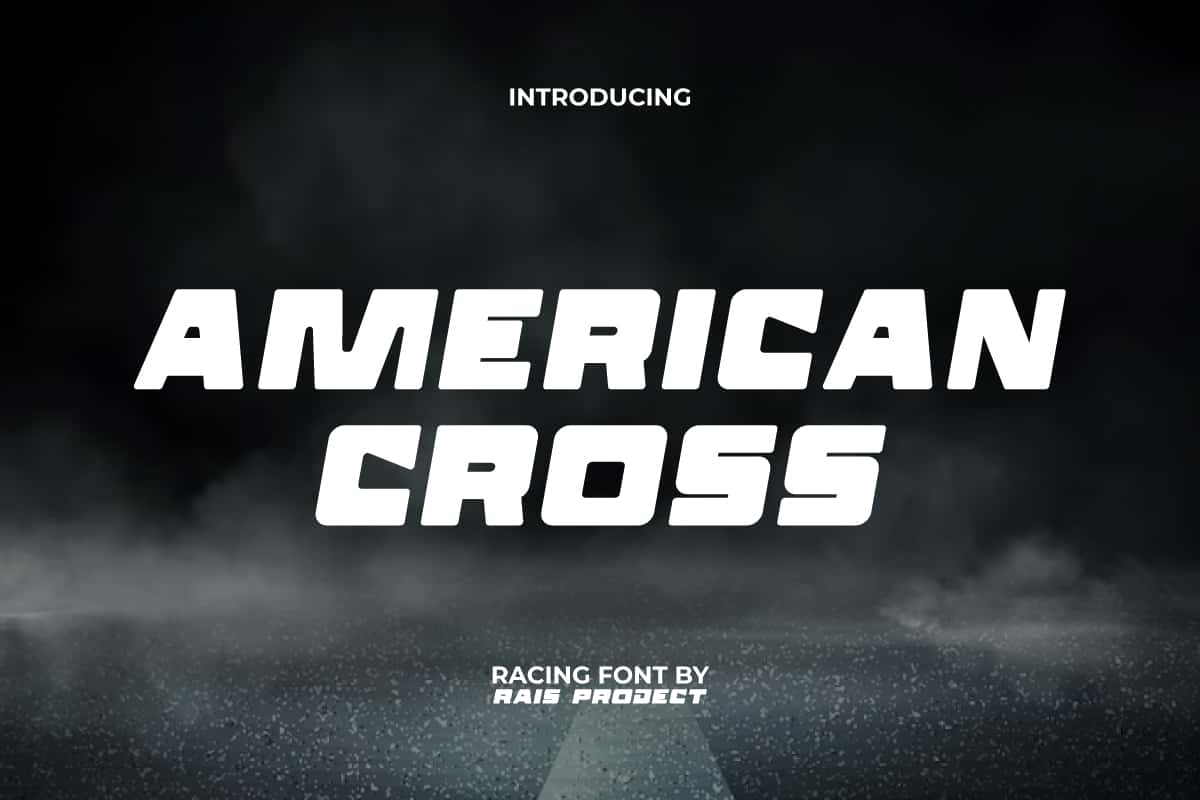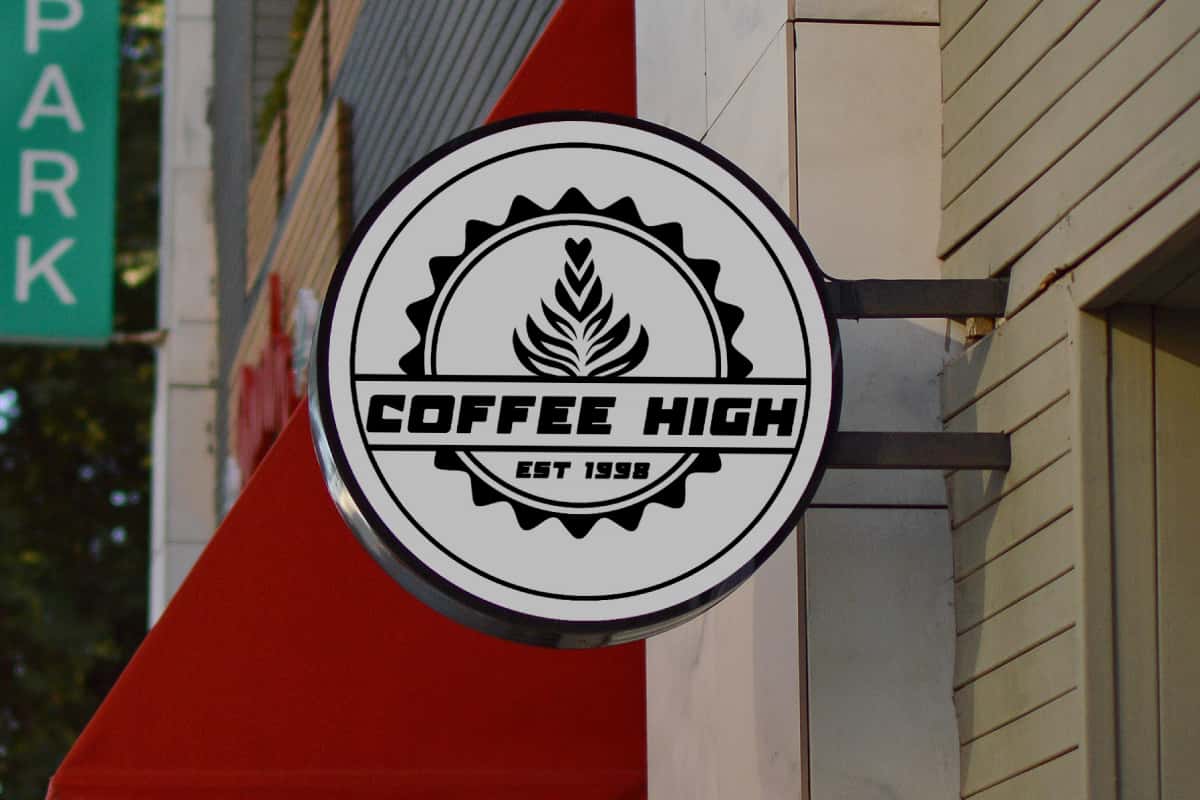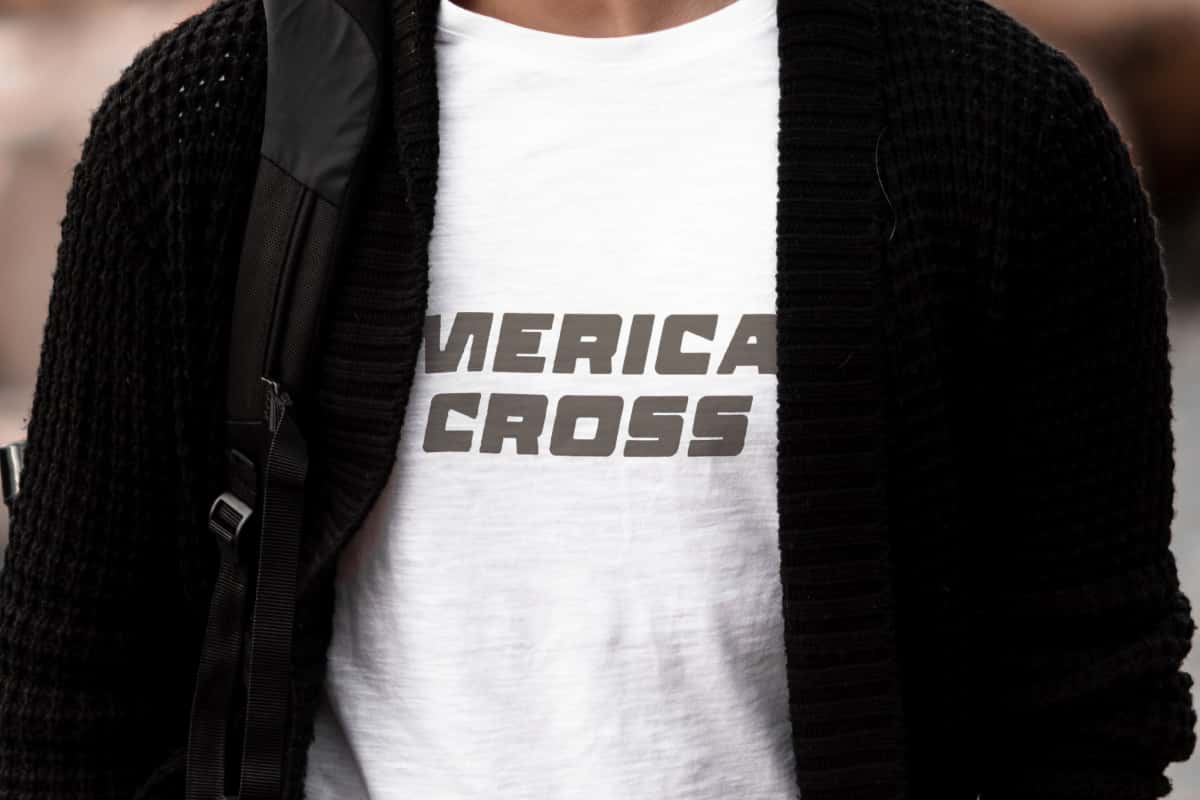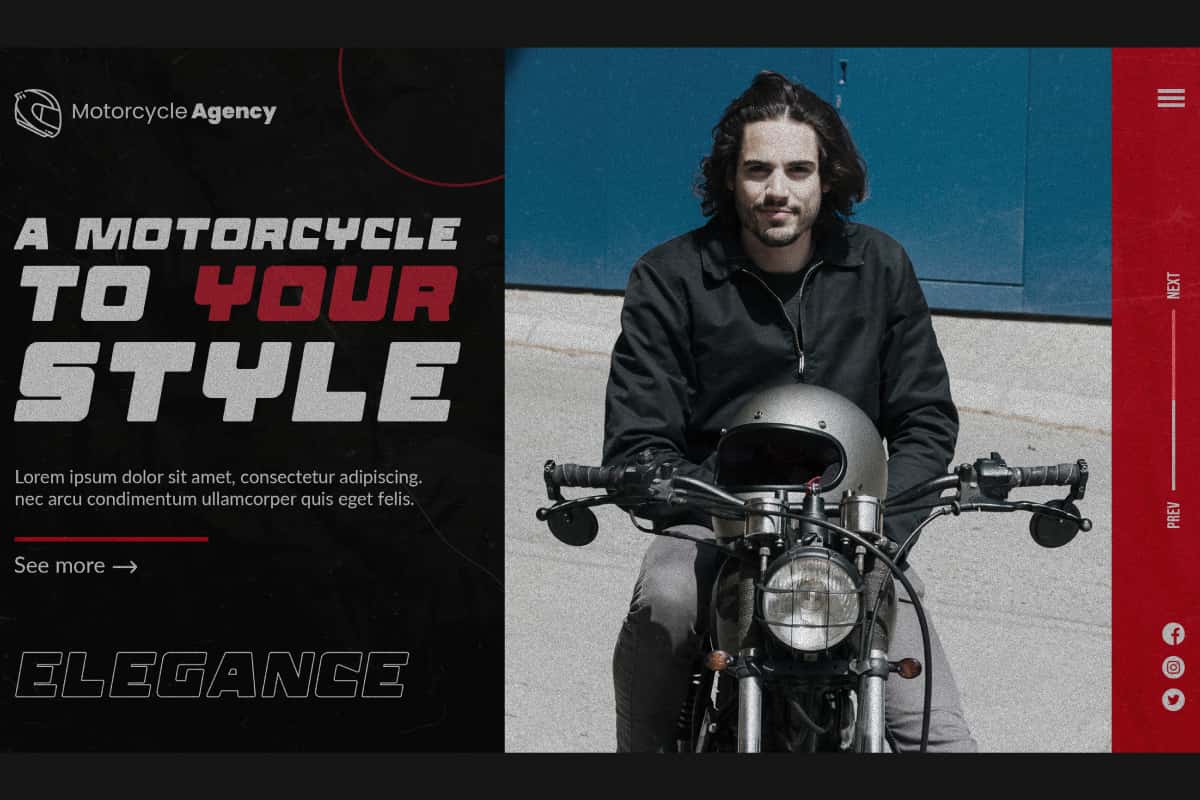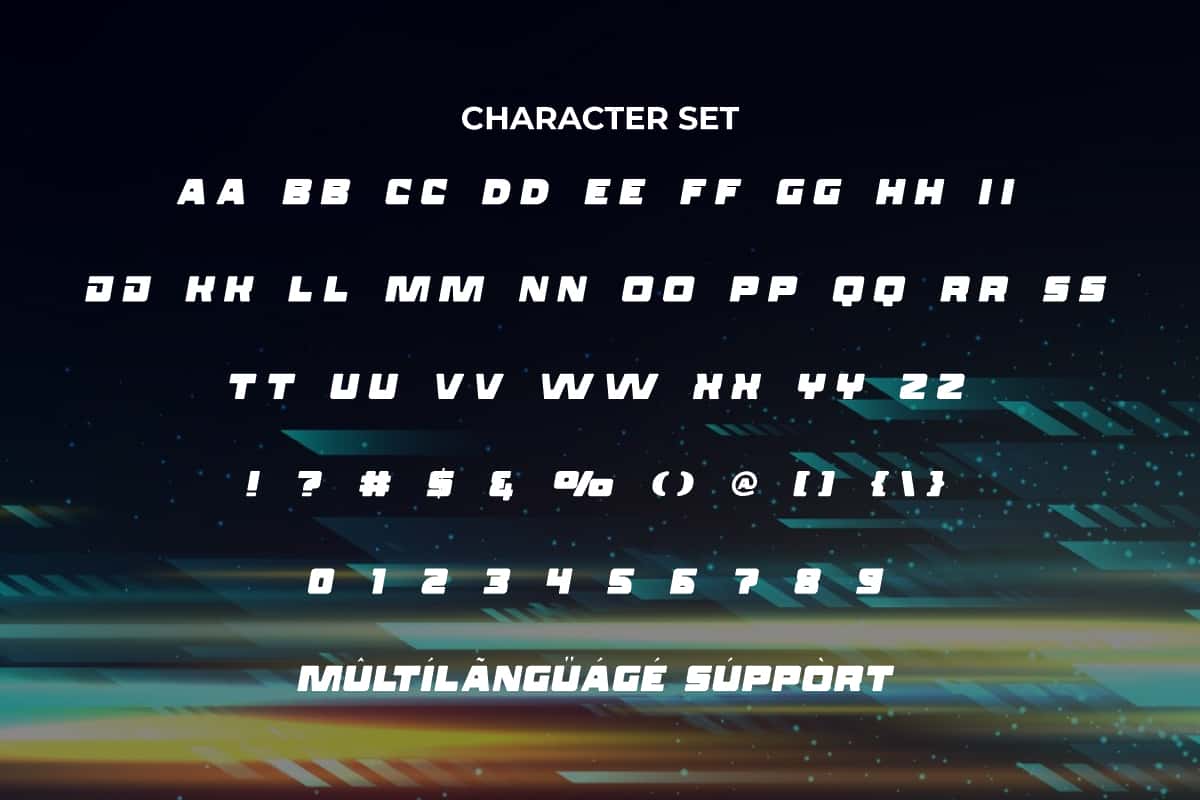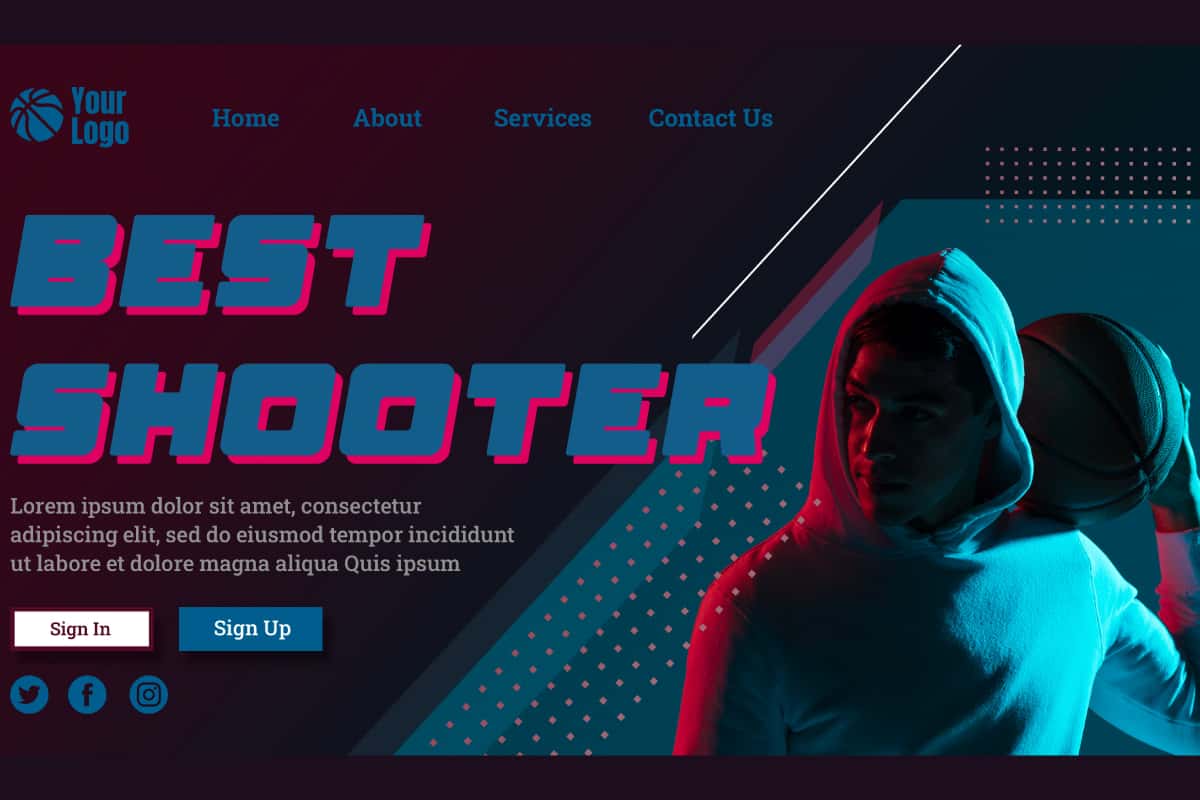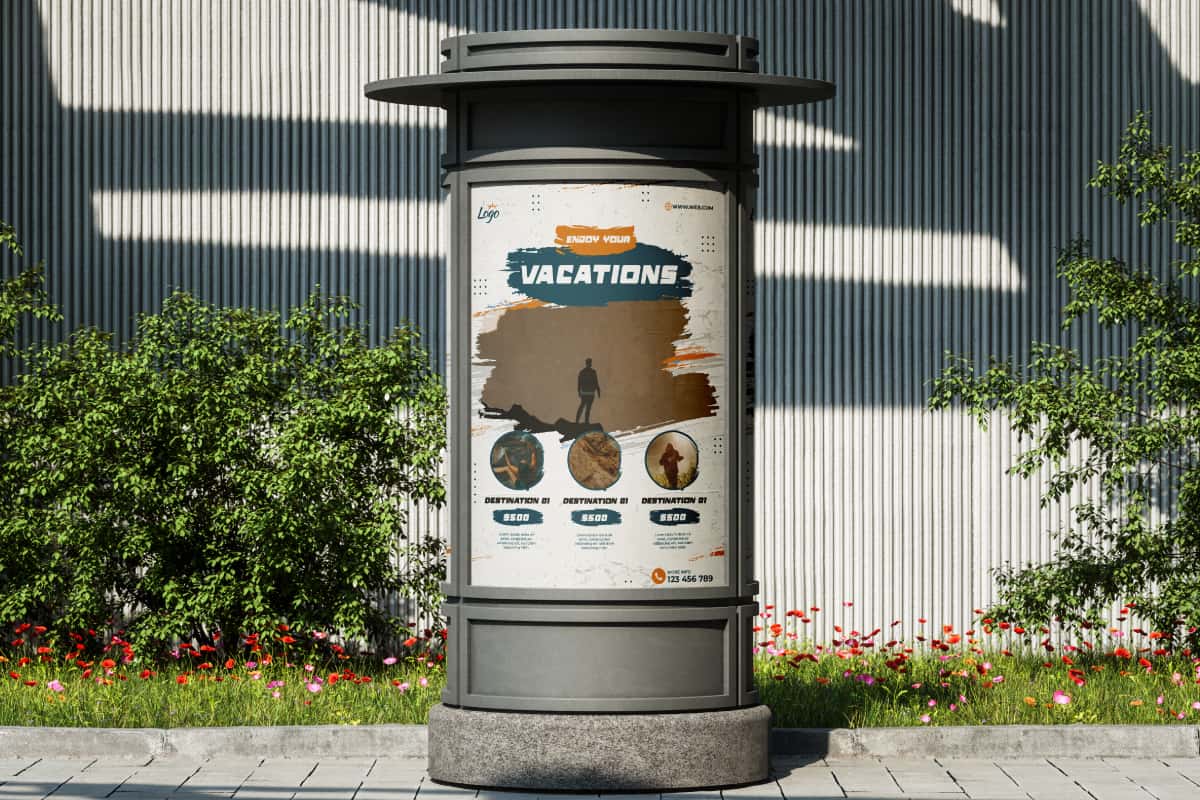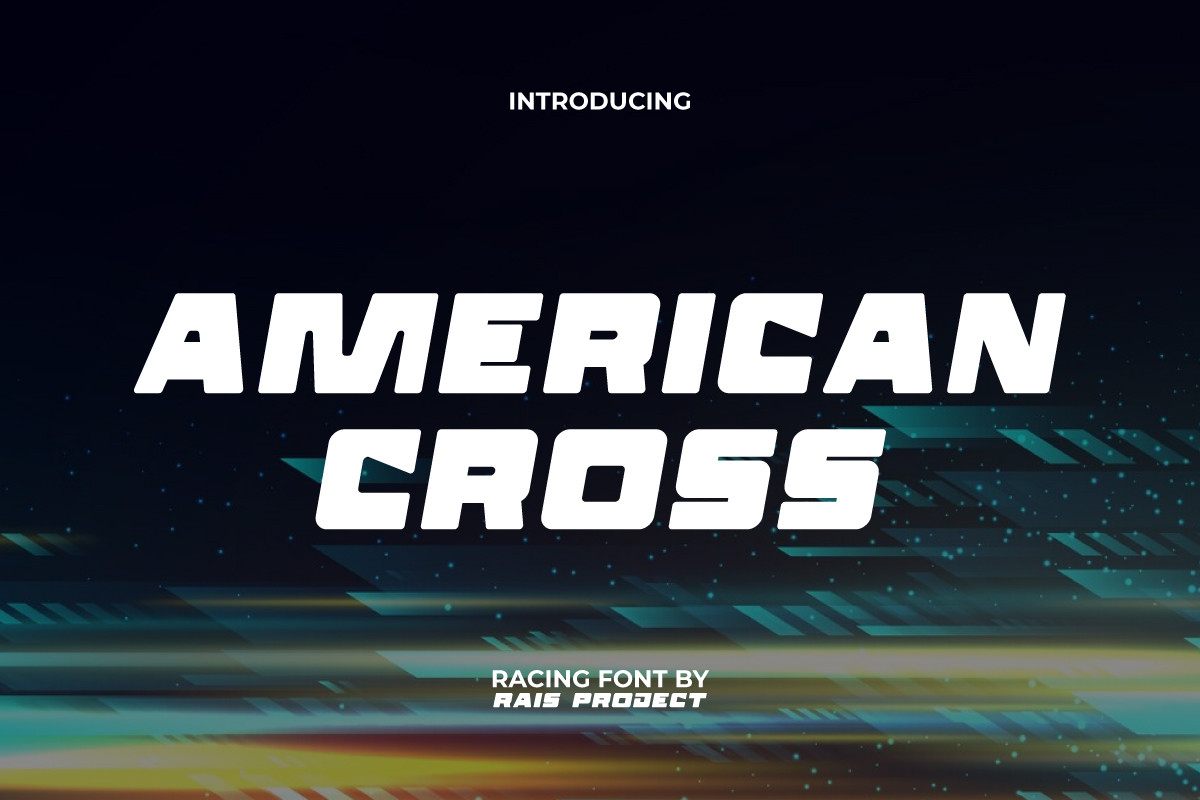
American Cross Font is a a modern strong style of racing display font that can convey a modern vibe by RaisProject. This display font has thick characters with a unique shape so it can make your design look up to date. It will be great for poster, label, product packaging, quotes, brand image, advertisement, invitation, marketing material, website page, and more! You can see the demo font below, input any word you want so you can see what it looks like: